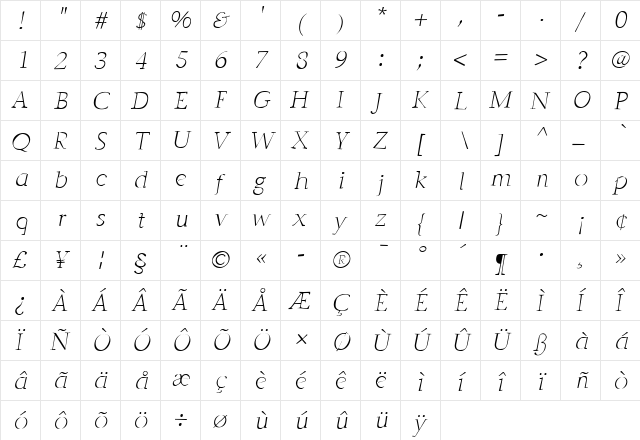
Godlike Medium Italic
Design Context for Godlike Typeface
Godlike takes a measured approach to typography — its balanced proportions and neutral character make it a reliable workhorse for both digital and print work. The slanted form adds forward momentum and visual energy.
Pro Tip: Try Godlike for annotation and caption copy alongside an upright companion — the contrast in angle creates a dynamic but ordered typographic system.